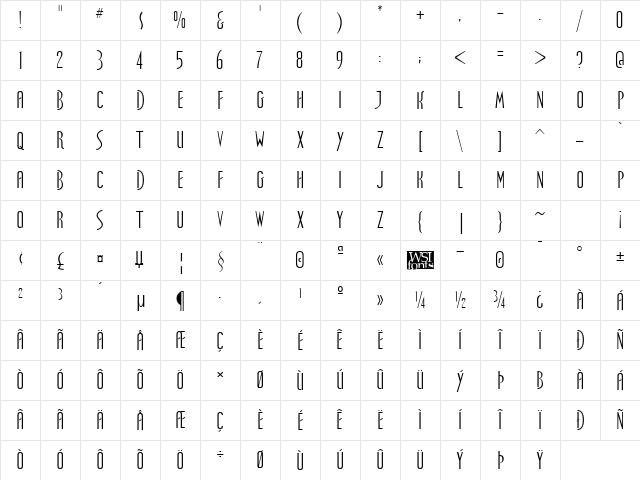
Spellbound Regular Free Font
Spellbound Regular
Spellbound Family
Spellbound Regular
Design Context for Spellbound
Spellbound is a composed and adaptable typeface that performs quietly and consistently across a wide range of design contexts.